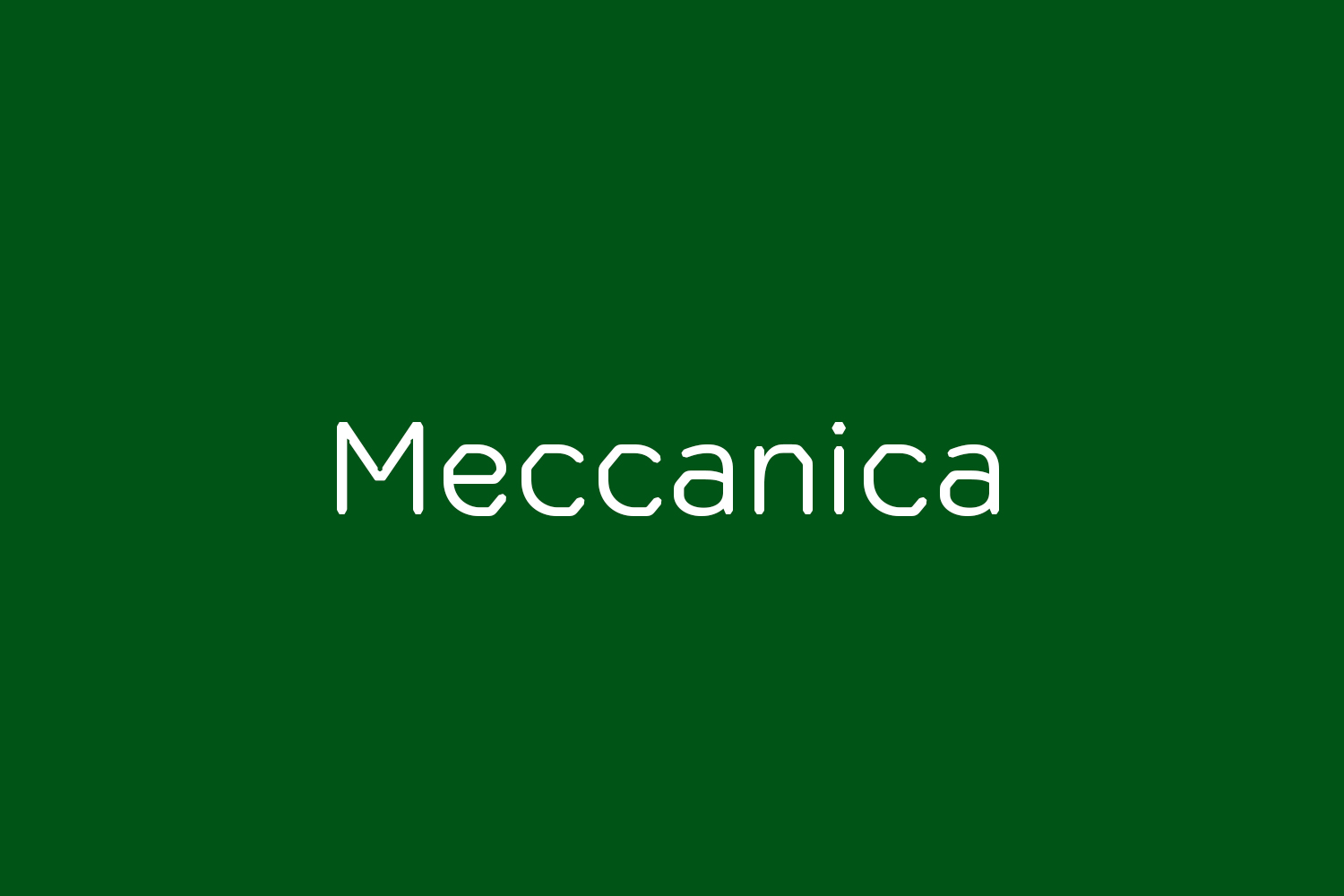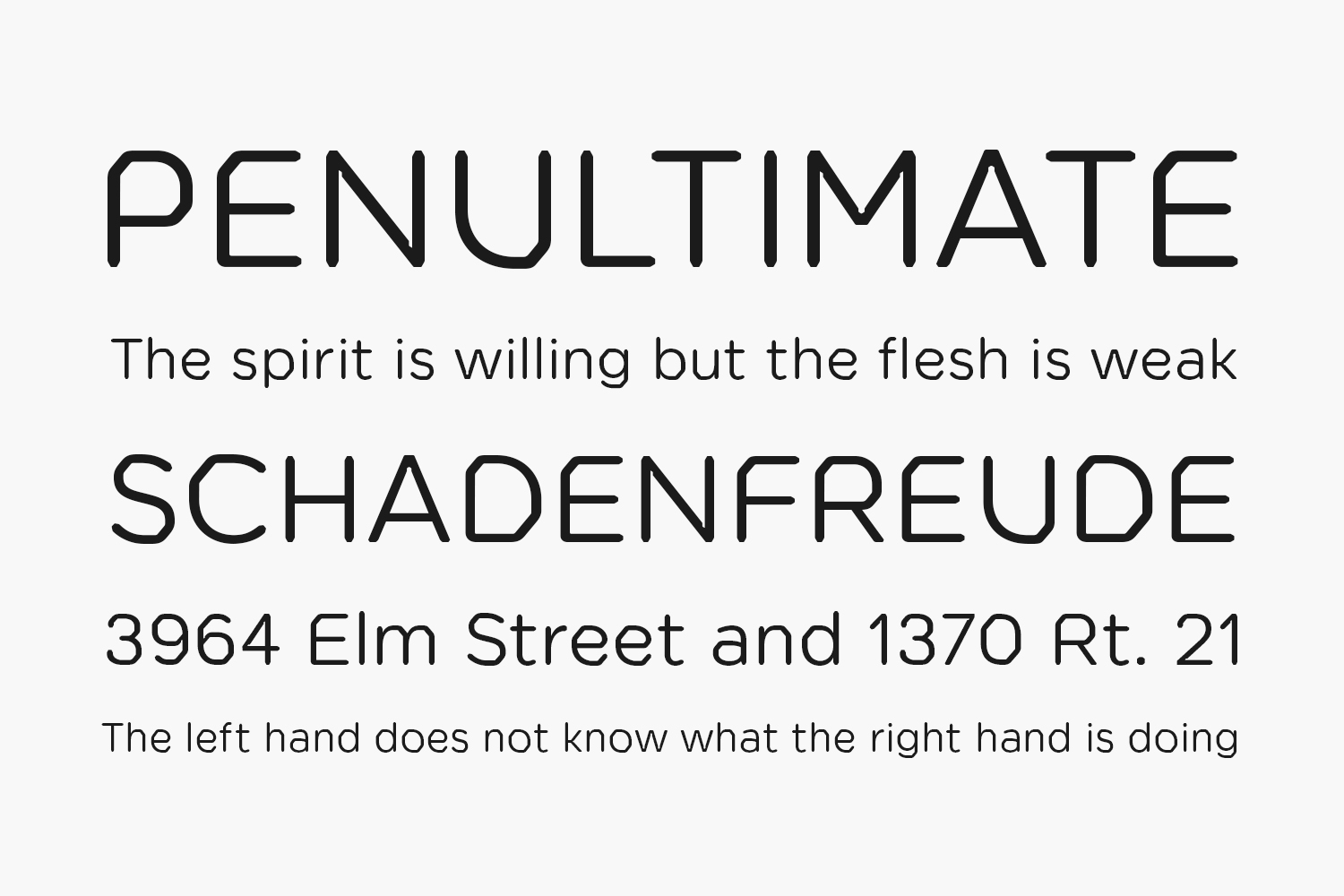
Meccanica Free Font Family is a geometric sans typeface like no other, its defining features include soft, chamfered edges, angular bowls and shoulders, angled/hexagonal terminals, and semi-hexagonal ink traps (in a nutshell).
Inspired by the mechanics of engineering – the humble nut and bolt in particular – Meccanica is a versatile typeface that will give your own typography a distinctive voice. Initially designed as a display typeface (perfect for headlines, logotype, branding and short runs of text), Meccanica also reads well as body copy –, particularly at smaller point sizes.